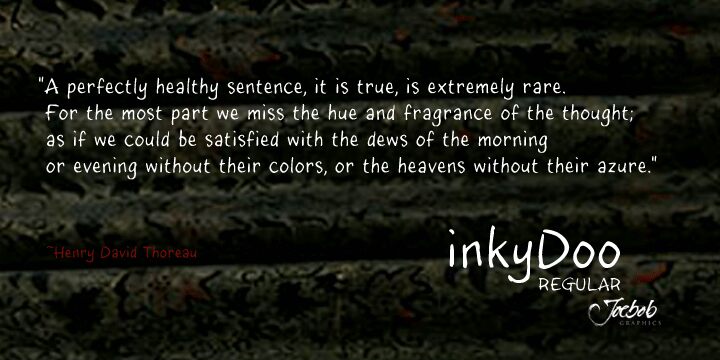
Inky Doo by J.J.W. van der Ham of JOEBOB graphics is a free handwritten font with marker-drawn ease. Tall, loosely formed letters vary in width and lean across an uneven line. Rounded turns, blunt ends, and sudden angles make the writing feel brisk.
Designers addressing children or casual lifestyle audiences can use its friendly, informal voice. It fits product packaging, event posters, and playful digital graphics. In magazines, it makes a heading resemble a quick personal note.